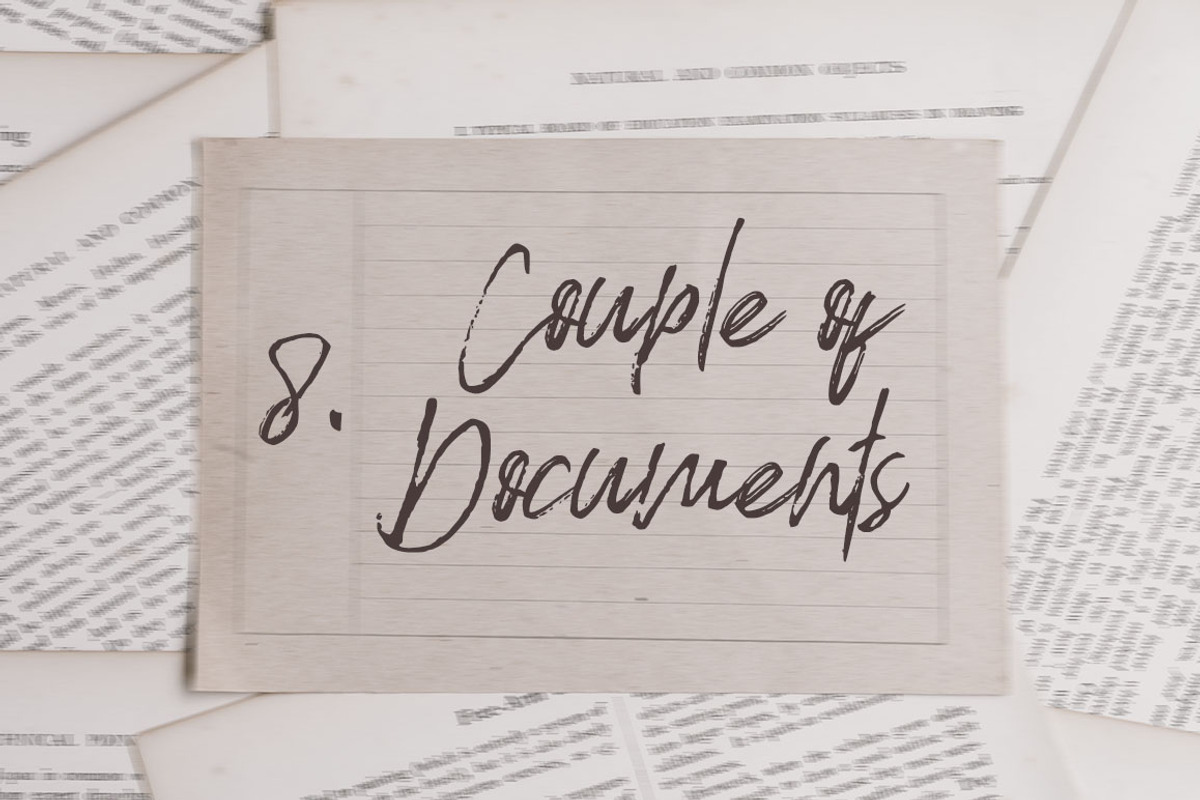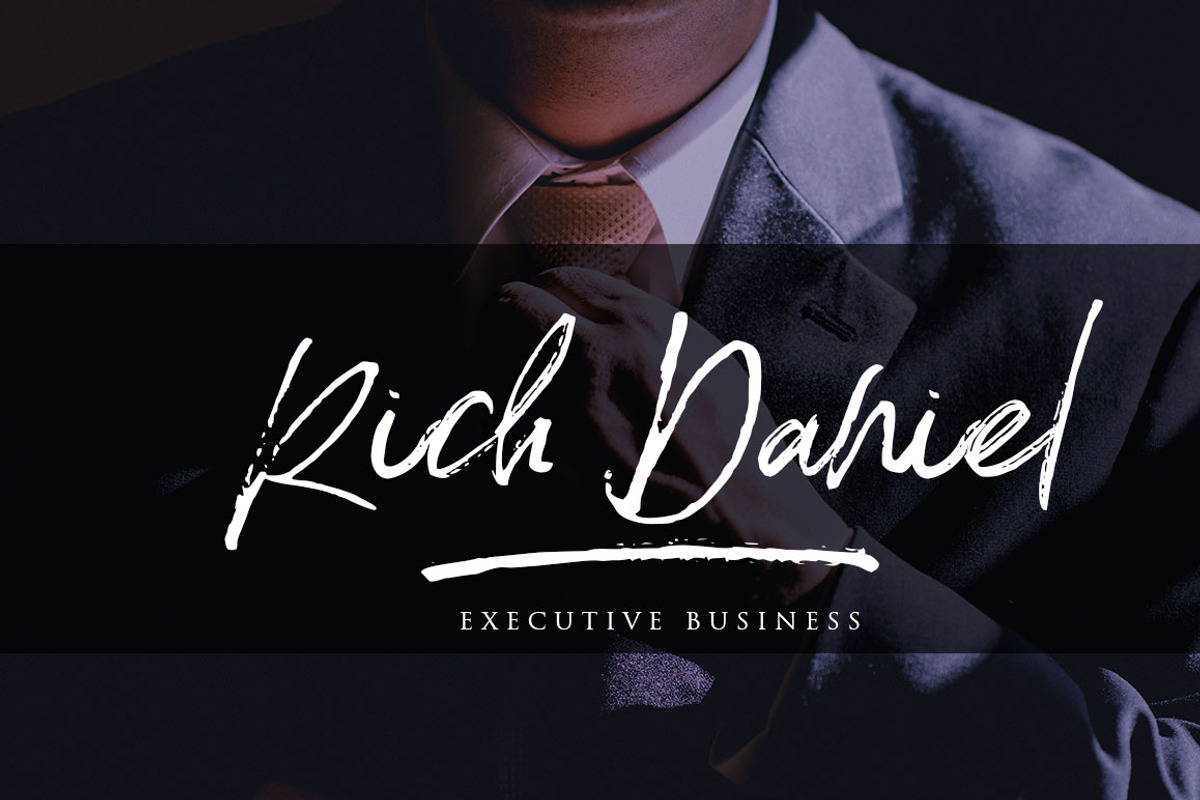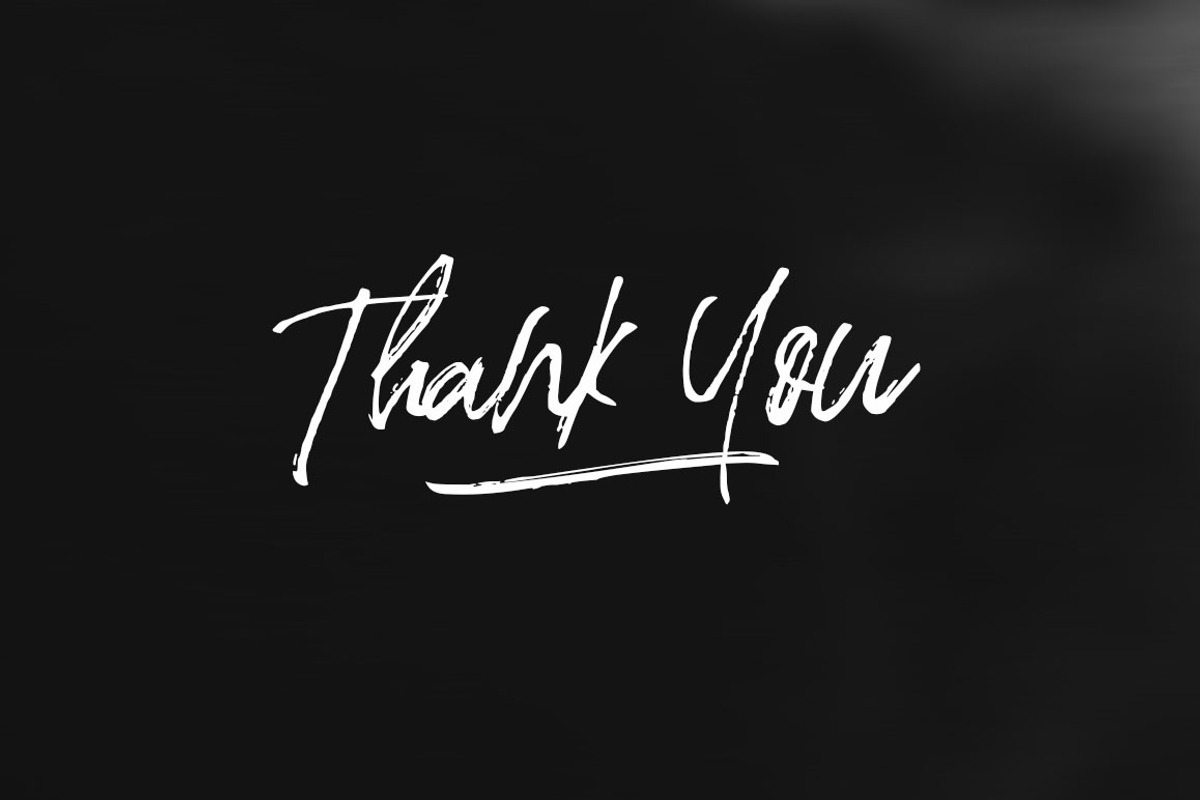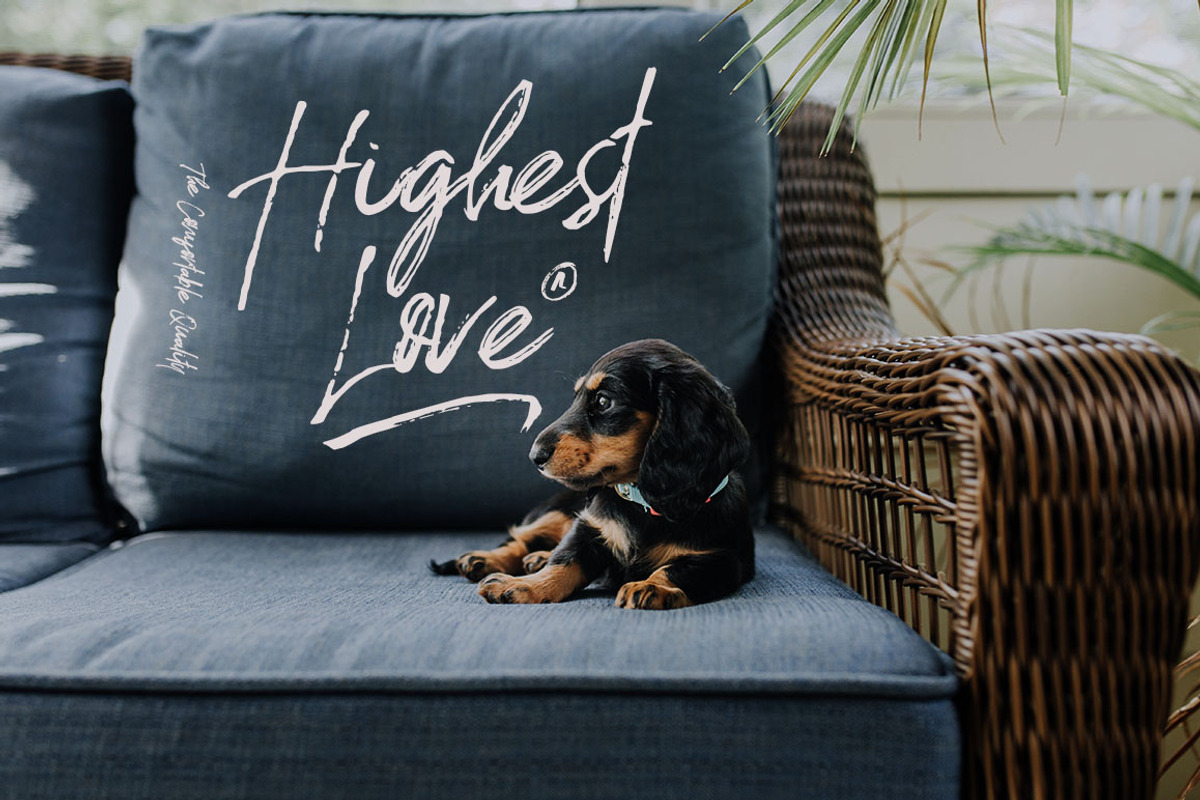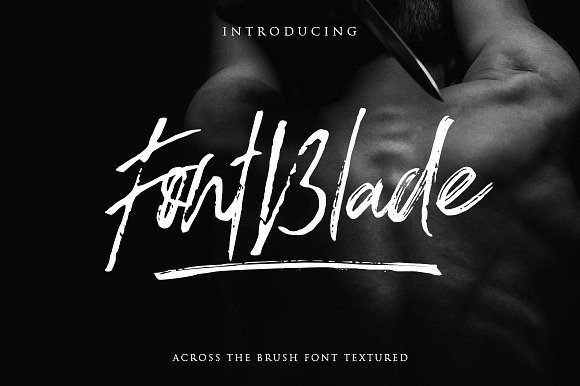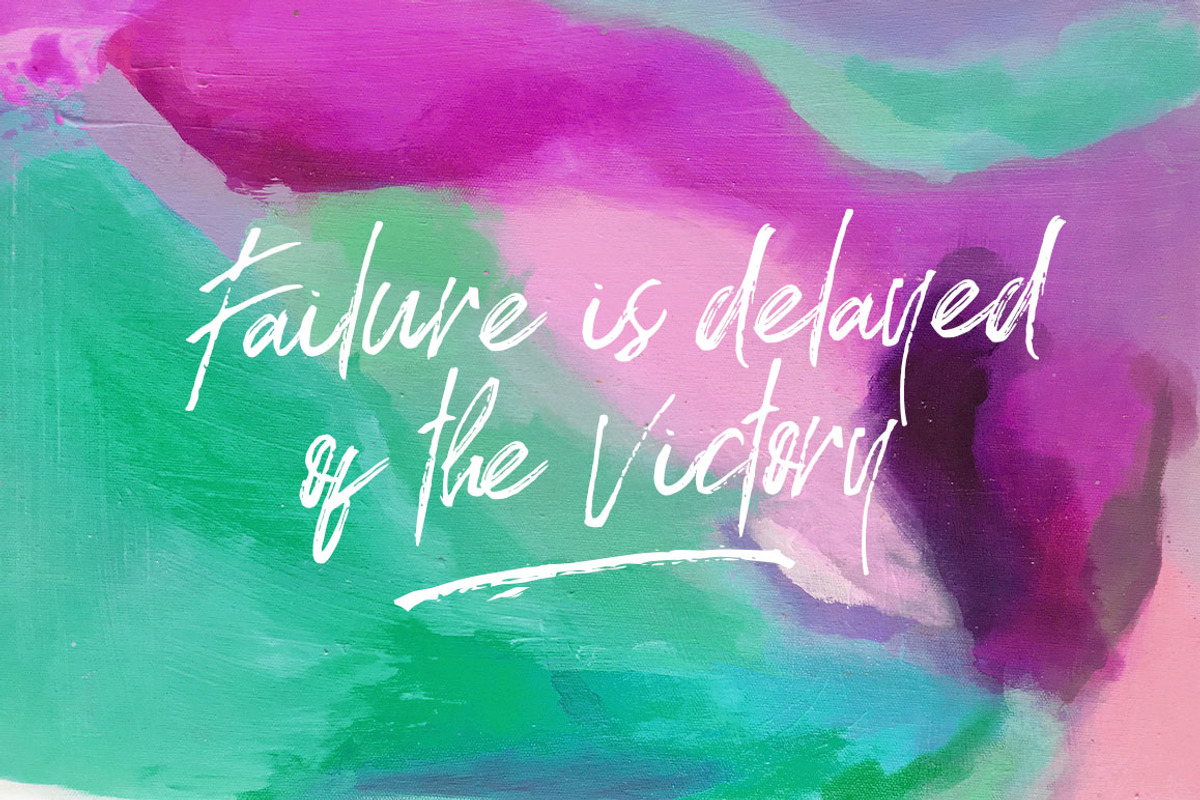
FontBlade Brush Font With Swashes
FontBlade A rustic, dapper handwritten font with a personal charm. With quick dry strokes and a brush style, FontBlade is perfect for branding projects, homeware designs, product packaging - or simply as a stylish text overlay to any background image.
1. FontBlade A handwritten script font containing upper & lowercase characters, numerals and a large range of punctuation.
2. FontBlade Swashes A set of 26 hand-drawn swashes, the perfect finishing touch to underline your FontBlade text. Simply install this as a separate font, select it from your font menu and type any A-Z uppercase a-z lowercase and number 0-9 character to create a swash.